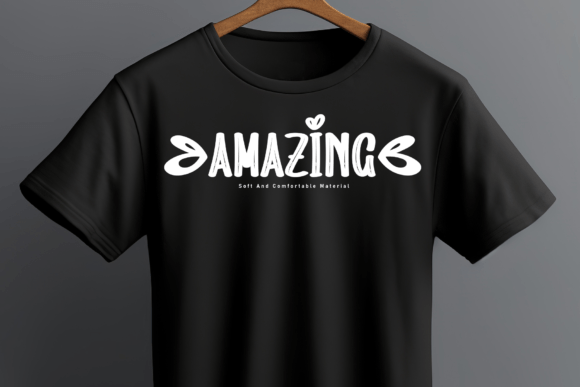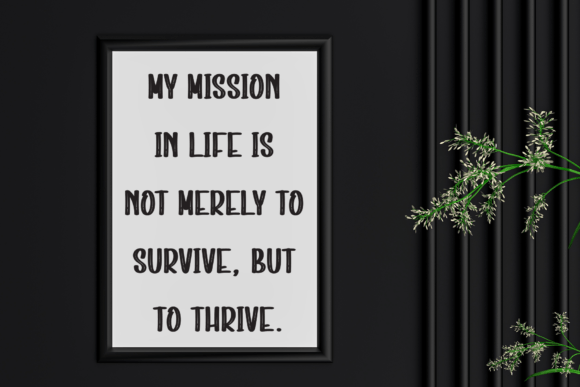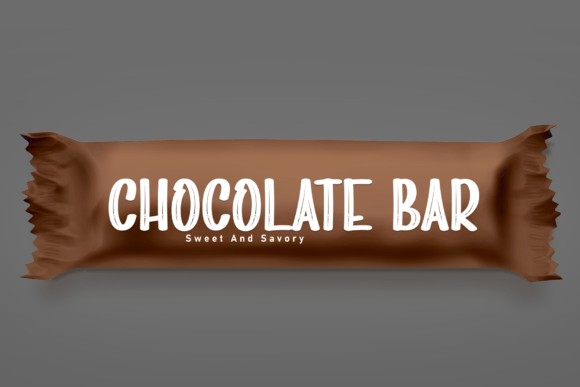
Introduction to Nightside Christmas Font
Nightside Christmas is a whimsical display font that infuses holiday cheer with a touch of romance.
Each letter is adorned with delicate hearts, adding a festive and warm vibe to your text Perfect for creating joyful and love-filled designs during the festive season.
Key Features of Nightside Christmas Font